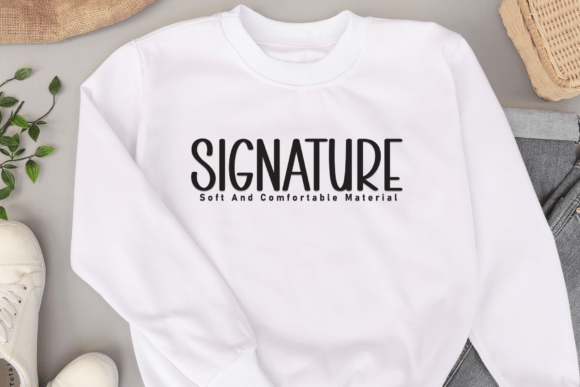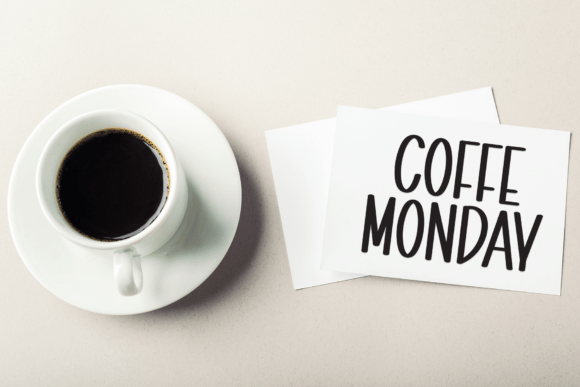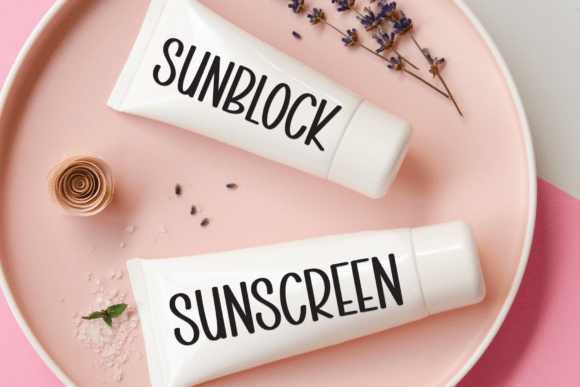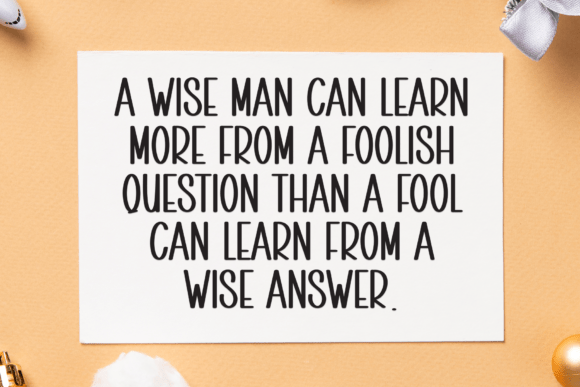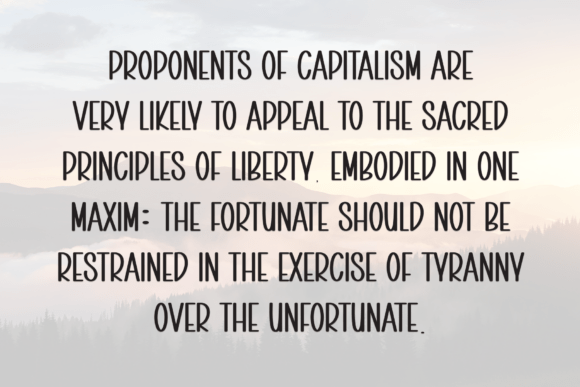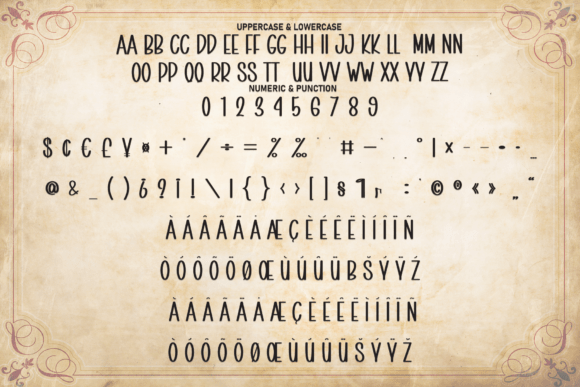
Discover the Best Vintage Font for Your Creative Projects
Are you looking for a font that exudes fun, relaxation, and a laid-back vibe? Look no further than the Best Vintage font. This neat and casual display font is perfect for designers and crafters who want to add a touch of playfulness to their creative projects. In this article, we’ll dive into the features and benefits of the Best Vintage font, and explore how it can elevate your summer posters, event flyers, branding, and more.
What is Best Vintage Font?
Best Vintage is a unique and refreshing display font that embodies the carefree spirit of summer. With its clean lines and effortless charm, this font is designed to bring a breezy, laid-back feel to any creative project or message. Whether you’re working on a summer poster, event flyer, or playful branding campaign, Best Vintage is the perfect choice.
Key Features of Best Vintage Font
- Clean Lines: Best Vintage features clean and crisp lines that give it a modern and fresh look.
- Easygoing Vibe: This font exudes a relaxed and casual vibe that’s perfect for summer-themed projects.
- Playful Personality: Best Vintage has a cheerful and upbeat personality that’s sure to capture the attention of your audience.
- Versatility: This font is versatile and can be used for a wide range of creative projects, from posters and flyers to branding and packaging.
Benefits of Using Best Vintage Font
So, why choose Best Vintage font for your creative projects? Here are just a few benefits:
- Instant Recognition: The unique and playful design of Best Vintage font makes it instantly recognizable and memorable.
- Emotional Connection: This font’s cheerful and laid-back vibe helps to create an emotional connection with your audience, making them more likely to engage with your message.
- Flexibility: Best Vintage font can be used in a variety of contexts, from digital and print materials to packaging and branding.
- Easy to Read: Despite its playful design, Best Vintage font is easy to read and understand, making it perfect for body text and headings.
Use Cases for Best Vintage Font
Best Vintage font is perfect for a wide range of creative projects, including:
- Summer Posters: Add a touch of fun and relaxation to your summer posters with Best Vintage font.
- Event Flyers: Create eye-catching event flyers that capture the attention of your audience with this playful font.
- Playful Branding: Use Best Vintage font to create a unique and memorable brand identity that’s perfect for summer-themed products and services.
- Digital and Print Materials: This font can be used in a variety of digital and print materials, including brochures, magazines, and social media graphics.
Tips for Using Best Vintage Font
Here are a few tips for getting the most out of Best Vintage font:
- Pair with Other Fonts: Experiment with pairing Best Vintage font with other fonts to create a unique and visually appealing combination.
- Use in Headings and Titles: Use Best Vintage font in headings and titles to add a touch of playfulness and personality to your creative projects.
- Experiment with Colors: Try out different color combinations with Best Vintage font to create a unique and eye-catching look.
In conclusion, Best Vintage font is a unique and refreshing display font that’s perfect for designers and crafters who want to add a touch of fun and relaxation to their creative projects. With its clean lines, easygoing vibe, and playful personality, this font is sure to capture the attention of your audience and leave a lasting impression. Whether you’re working on a summer poster, event flyer, or playful branding campaign, Best Vintage font is the perfect choice.